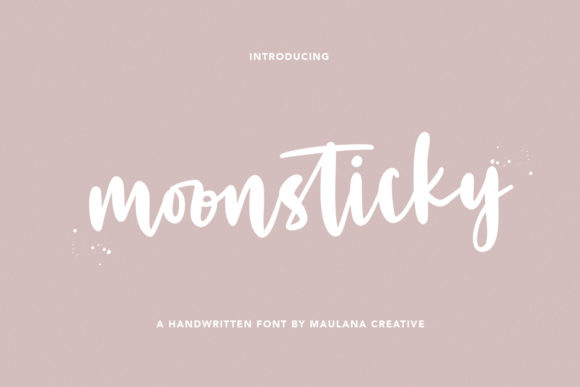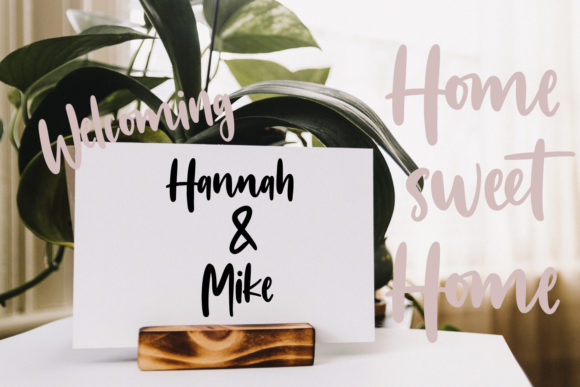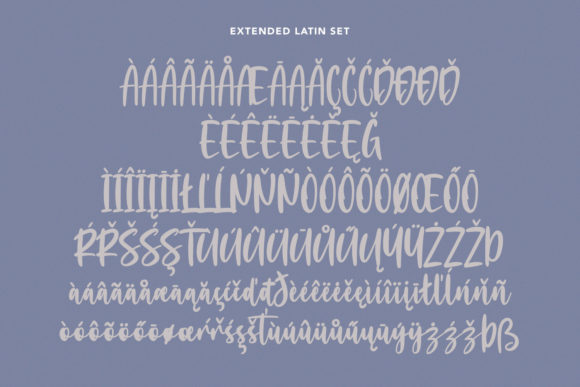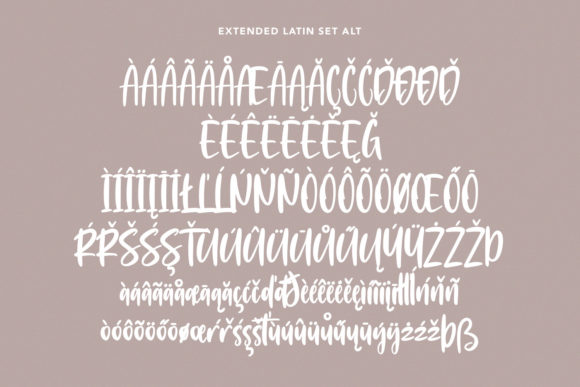
Moonsticky Font
About Moonsticky Font
Moonsticky is a sweet and cursive handwritten font. This gentle font will look gorgeous on a variety of design ideas. It will add a joyful and romantic touch to each of your projects!